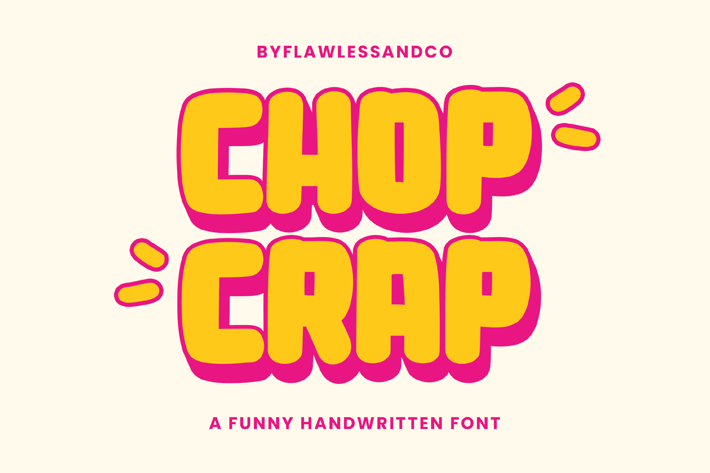
Chop Crap - Funny Handwritten Font
Introducing "Chop Crap" - a lively and humorous handwritten font that combines boldness with a playful twist. With its expressive letterforms and bold style, Chop Crap brings a touch of fun and whimsy to your designs. This font is suitable for branding, business, logos, magazines, and others.